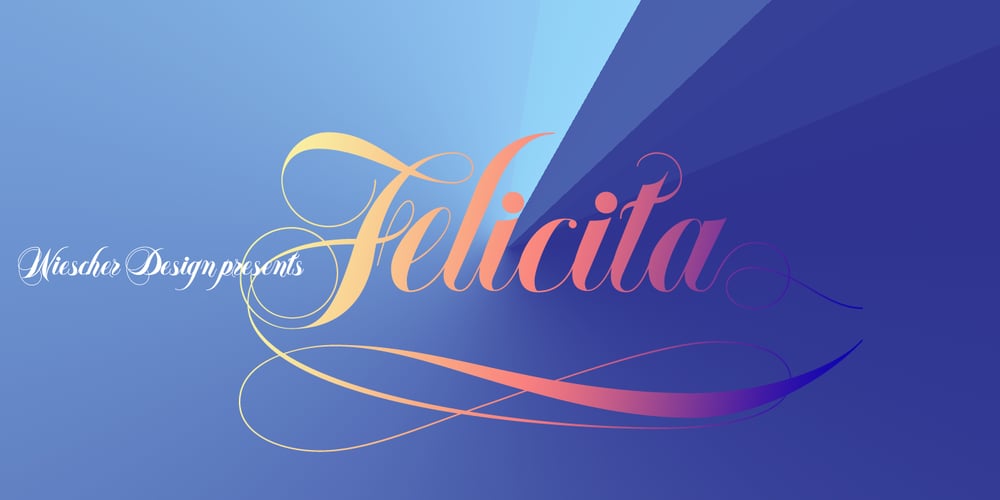
Felicita Font Family was designed by Gert Wiescher and published by Wiescher Design. Felicita contains 10 styles and family package options. Felicità is based on the design of my »Ellida« font-family. It was designed with »happiness« in mind. Therefore I used extremely high contrast between the down- and upstrokes, this gives the fonts a lively, happy appearance. I designed two different basic fonts, that can be mixed or used straight (this is number two). Then I designed two different sets of Initials (Initials), middle- and end-swings and added a set of embellishment wings and flowers. Since not everybody uses Open-Type-savy software I designed single fonts to be mixed. Ellida is suited very well to design short captions & for all kinds of invitations, but as you can see here it can used for longer copy as well just give it enough line spacing. Enjoy! Take a look at the Felicita Booklet please http://www.myfonts.com/artwork?id=127930&subdir=original;